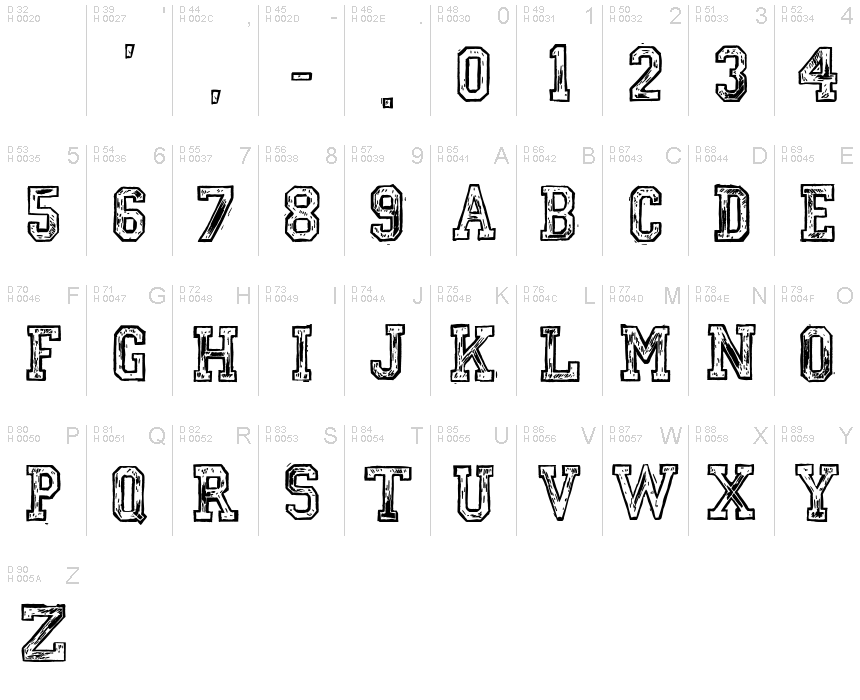
Mickey's School is a bold, old-school display font with an eroded aesthetic, designed by Imagex. This captivating typeface exudes a vintage charm, perfect for creating eye-catching vintage-inspired designs, retro-themed branding, or adding a touch of gritty character to various creative projects.
The striking distressed texture and angular letterforms of Mickey's School deliver a sense of rugged authenticity, lending an impactful and memorable visual presence to any design. This versatile font can effortlessly blend into diverse design styles, from rustic and industrial to modern and edgy.